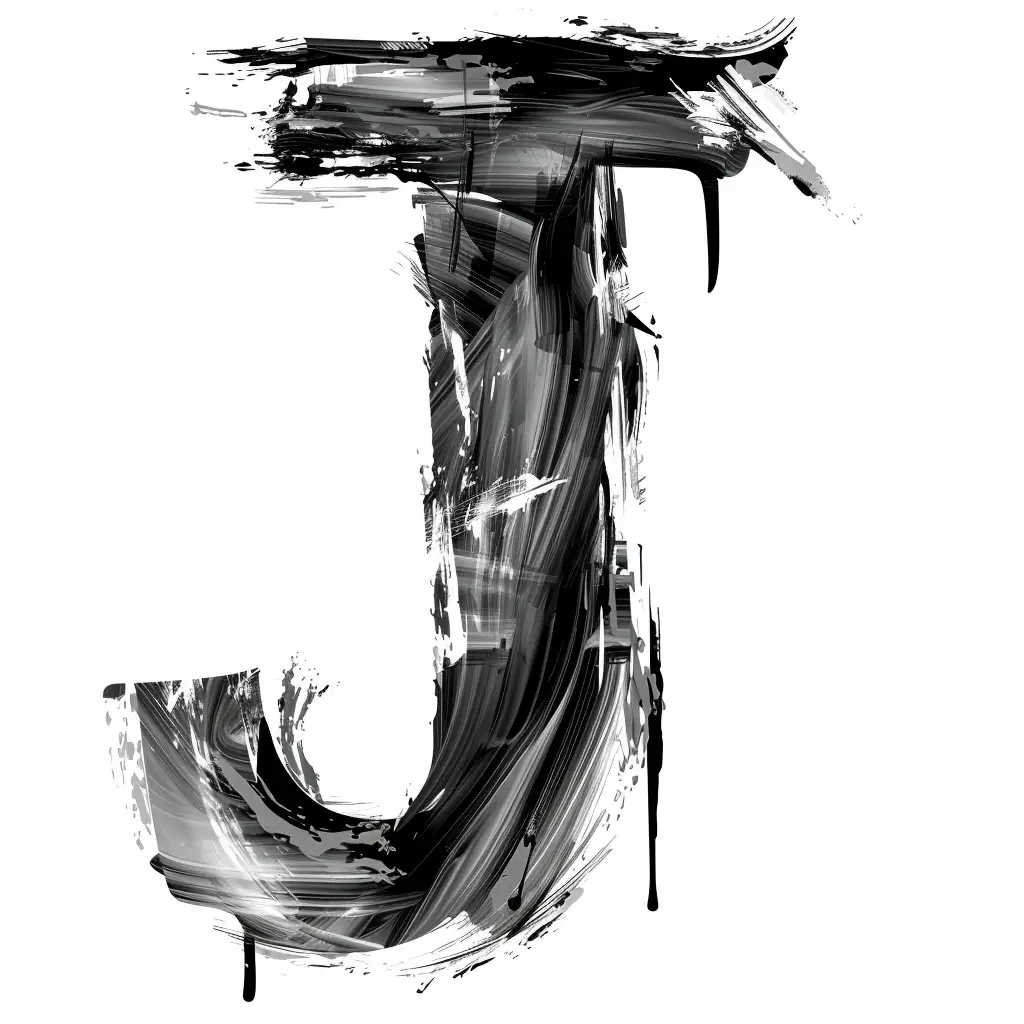
The image features a stylized, abstract representation of the letter "J," rendered with bold, expressive brushstrokes and splatters. The design uses a monochromatic palette of black and white, with dynamic, textured strokes creating depth and movement. Visual elements like drips, smudges, and layered paint effects give it a raw, artistic, and slightly chaotic aesthetic.